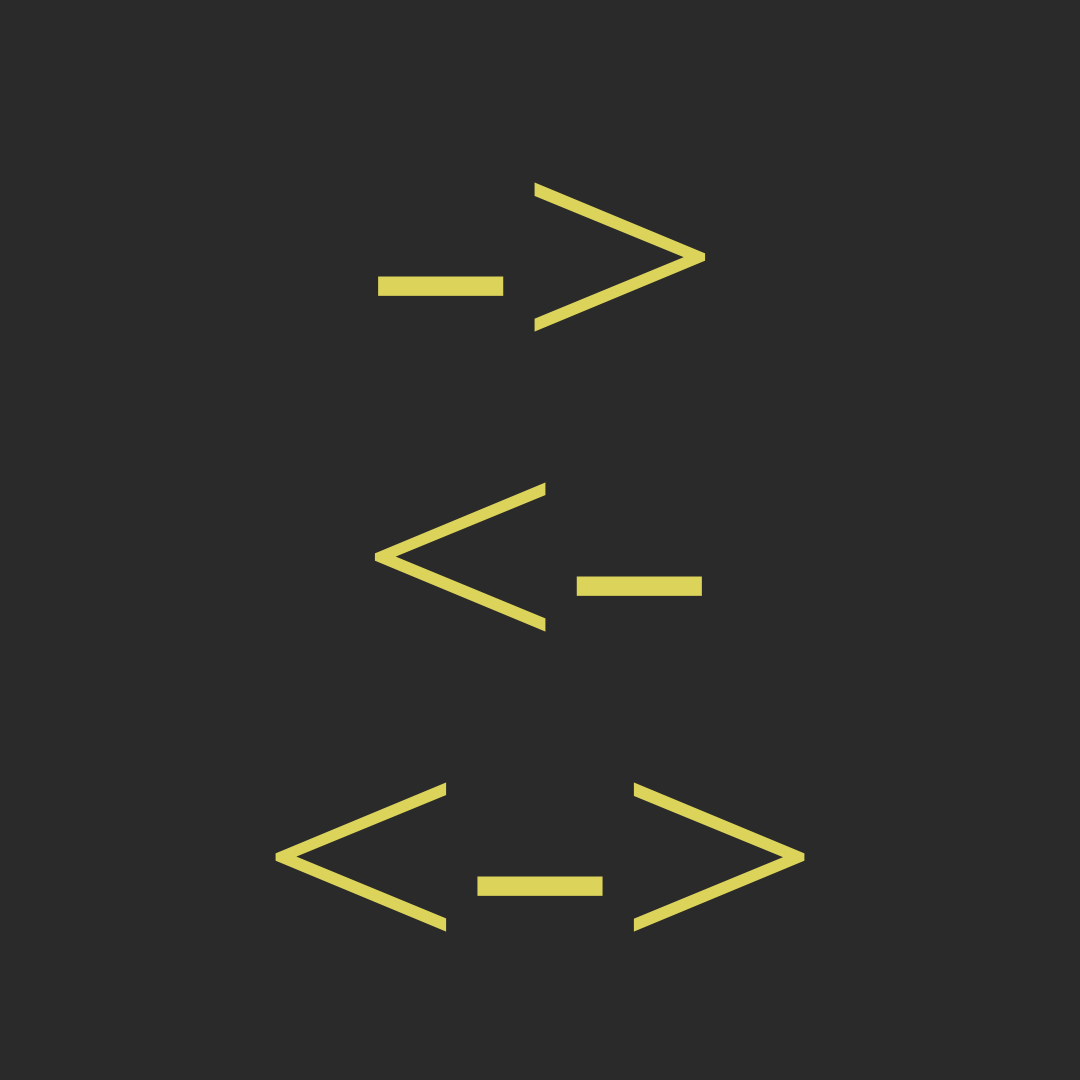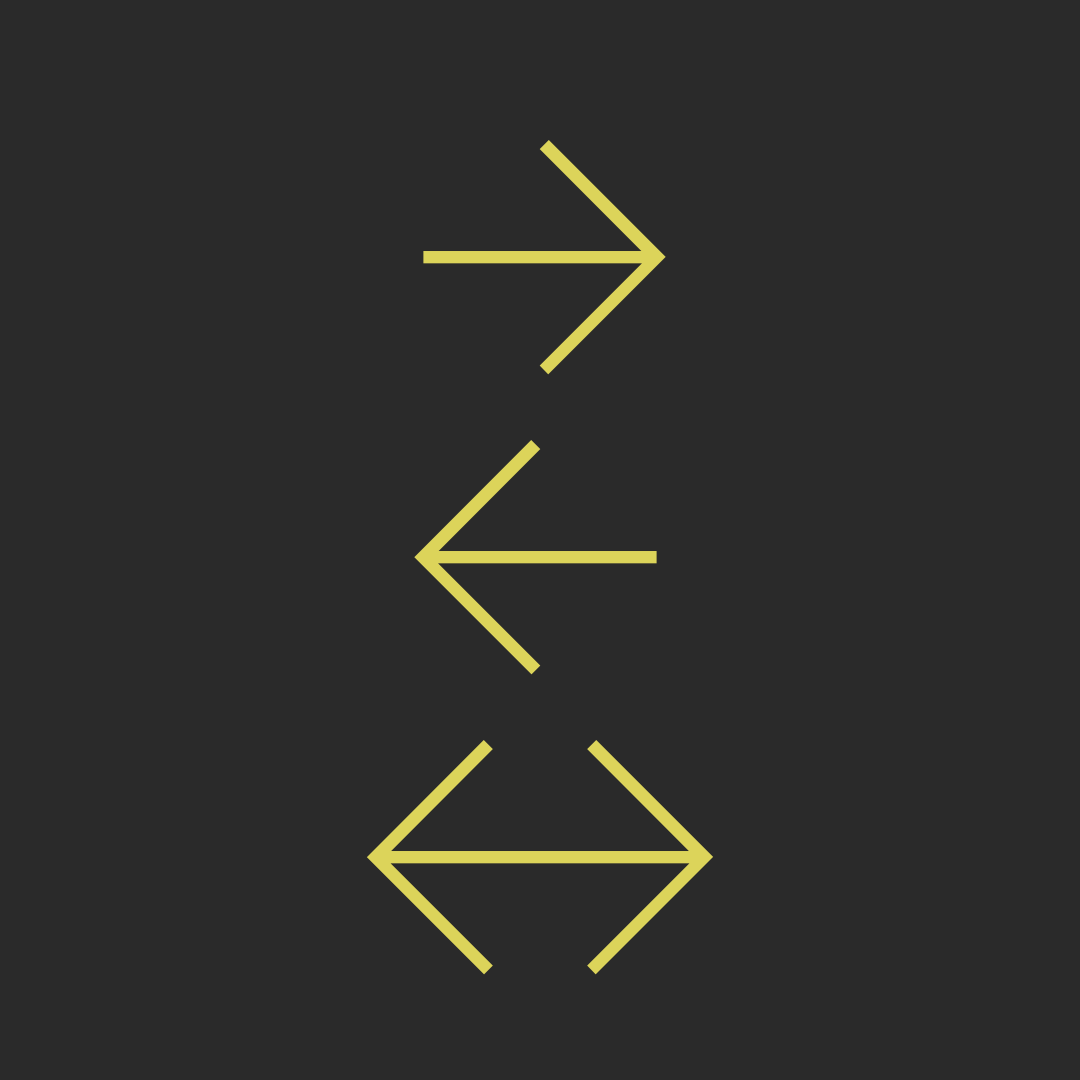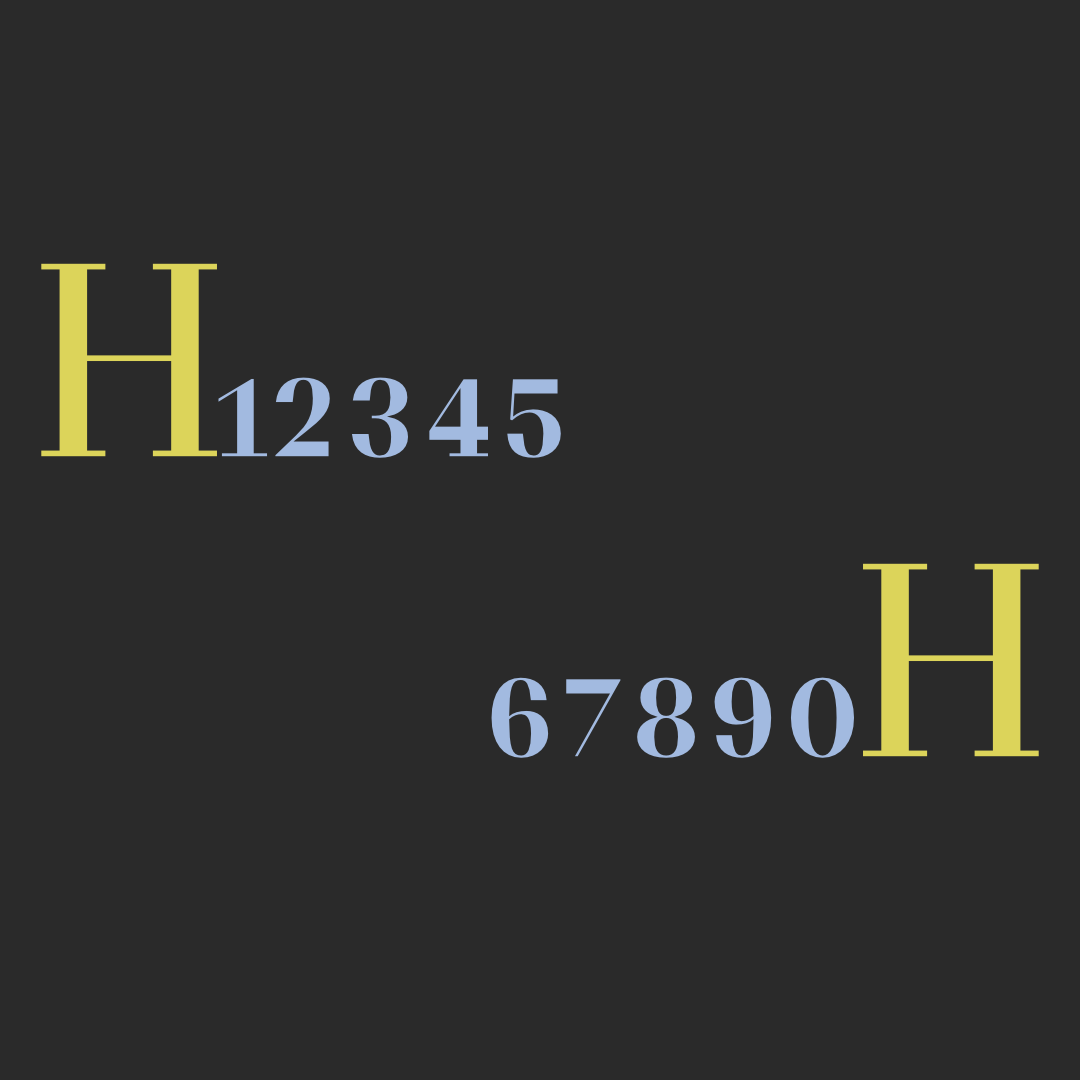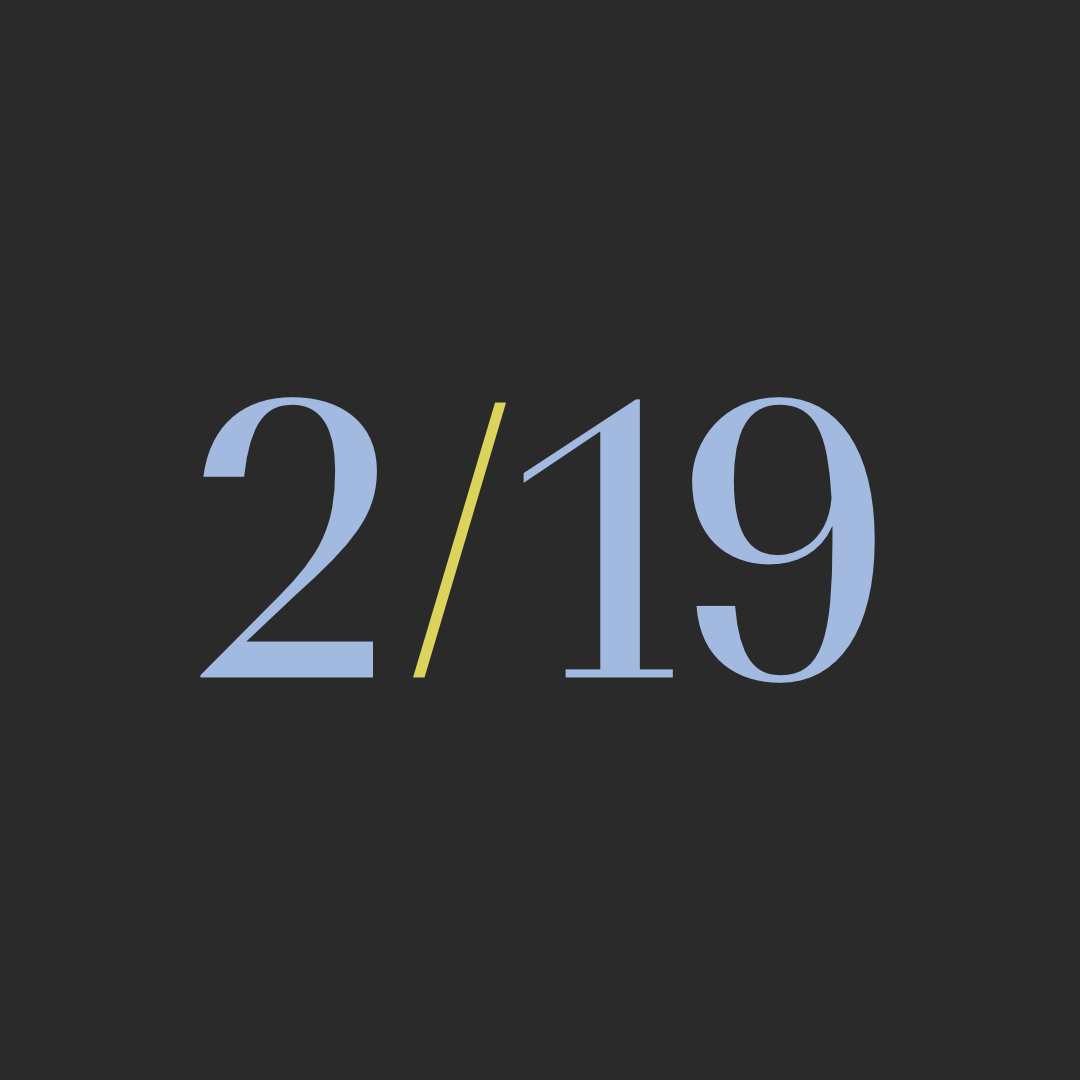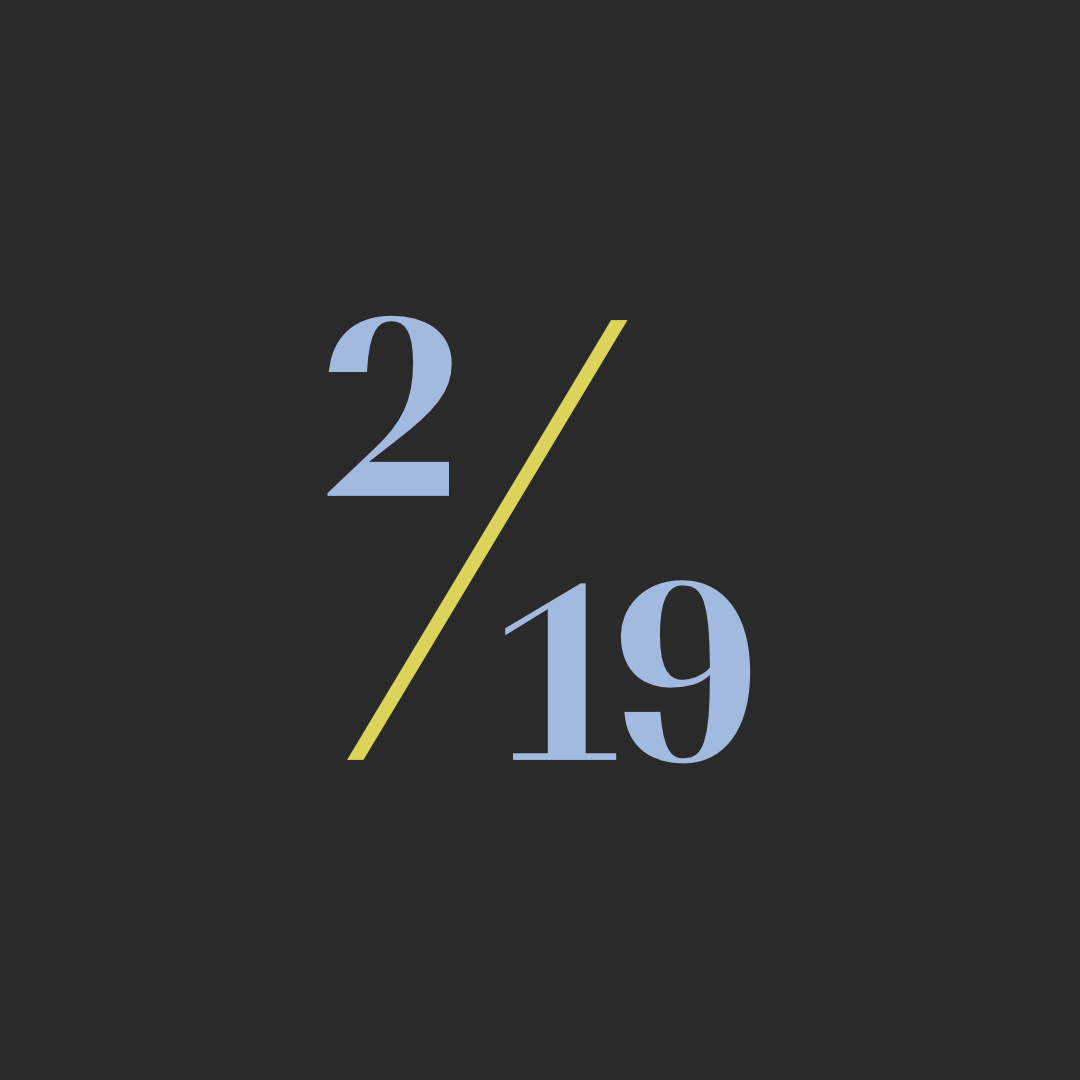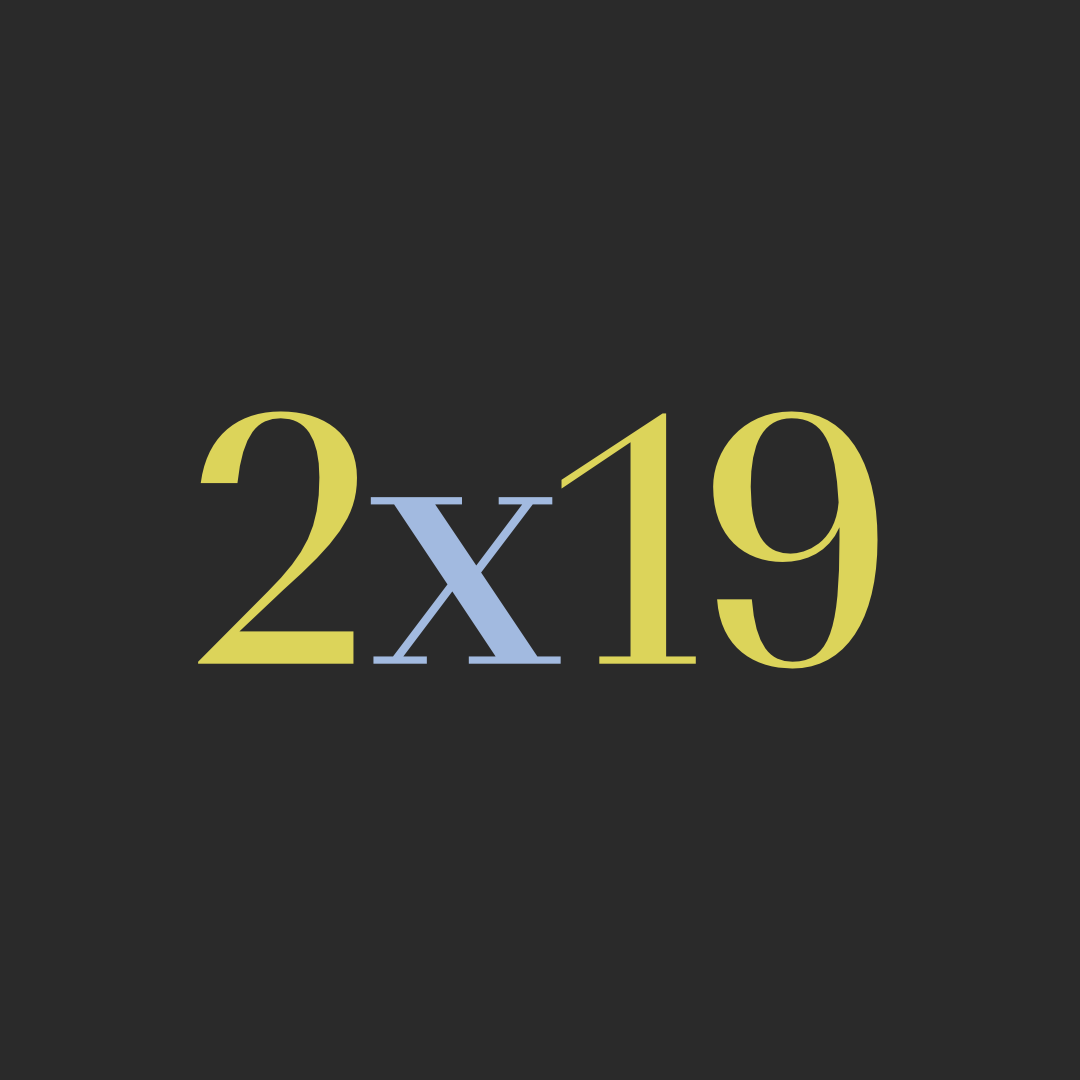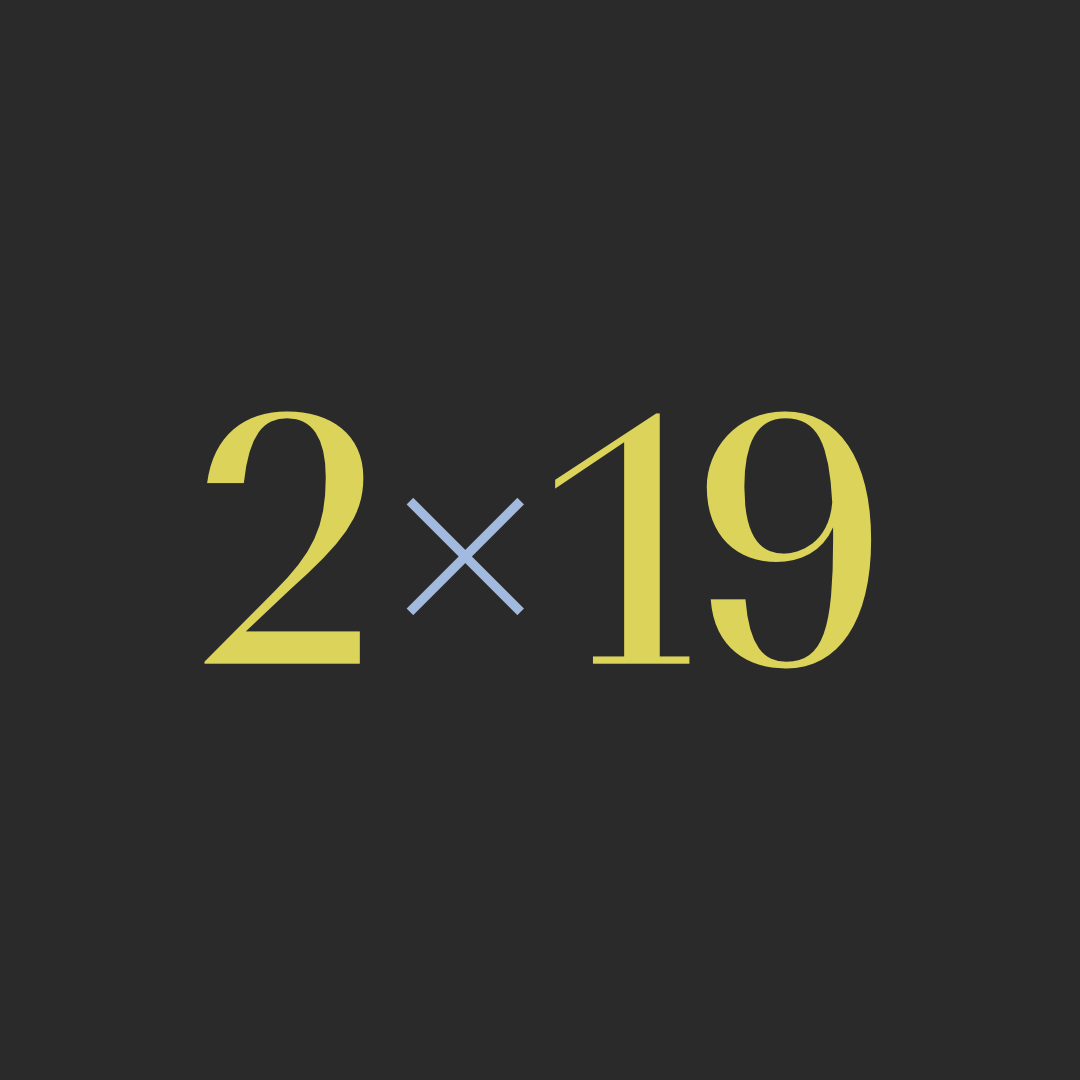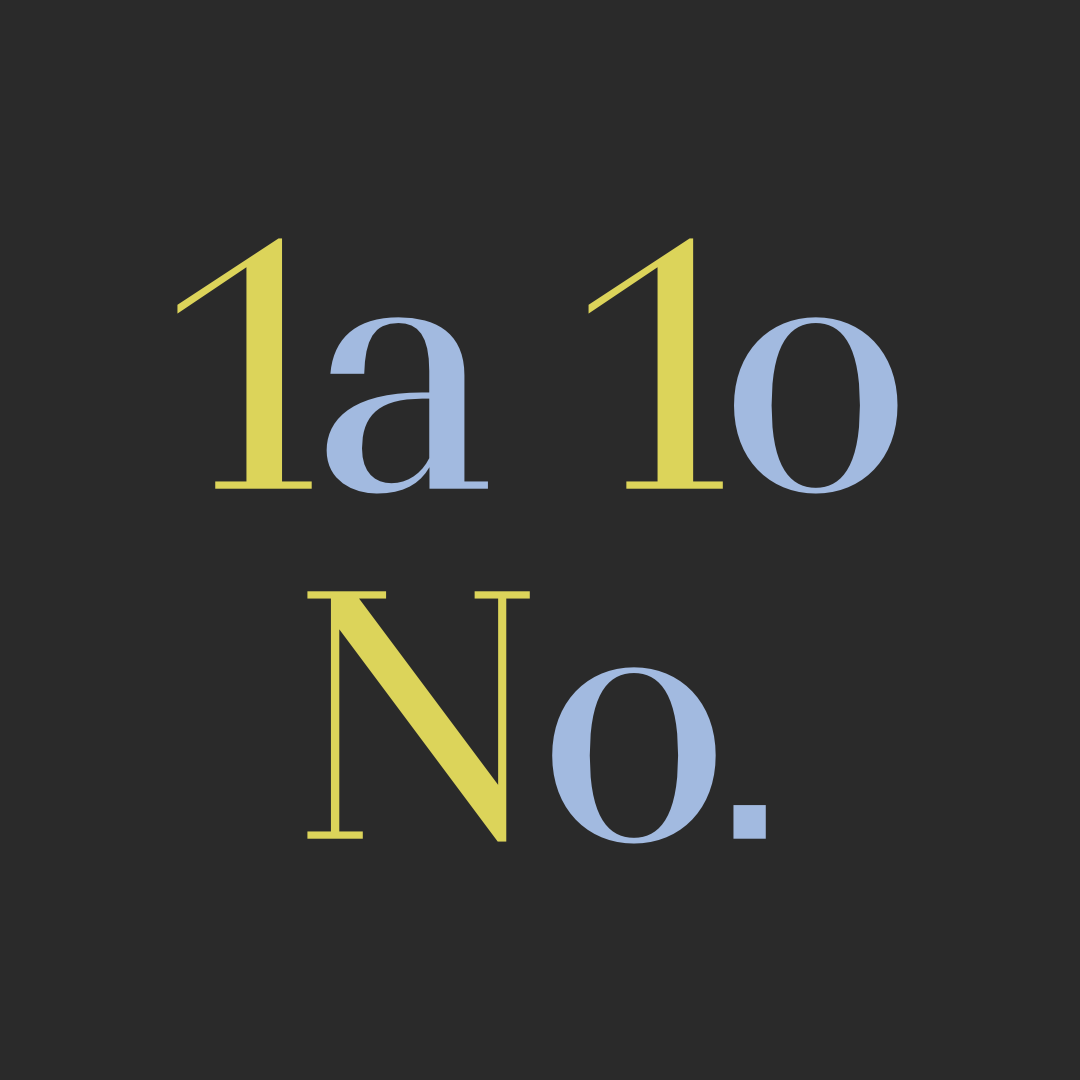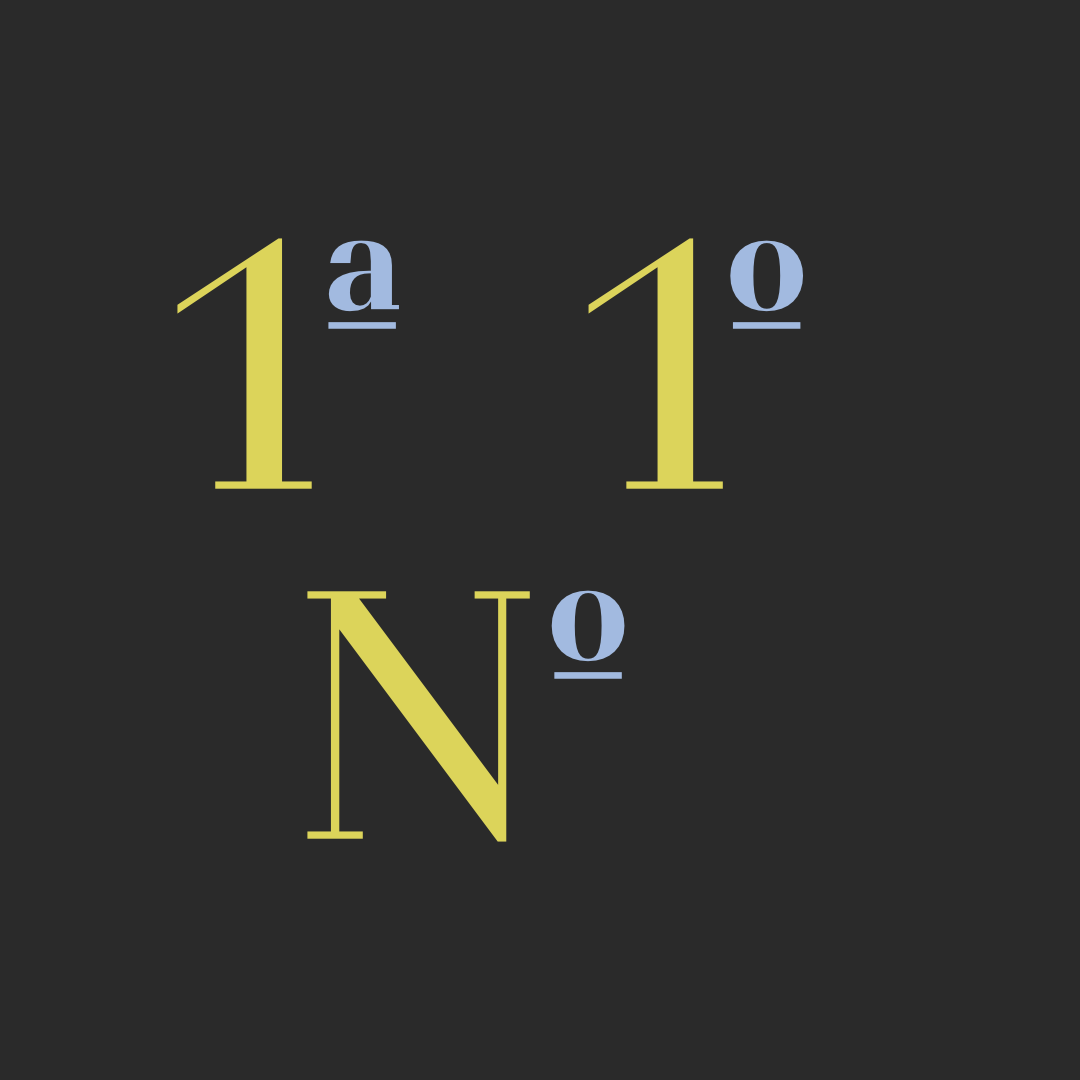
Resort Serif
Resort Serif is a high-contrast serif typeface grounded in a neo-grotesque structure. Its foundation is shared with BS Resort Classic, but the addition of hairline serifs shifts its tone toward something sharper, more formal. The construction remains strict and proportioned, methodical rather than ornamental.
With its vertical contrast, BS Resort Serif embraces the full clarity of the Didone tradition, while keeping a constructed, contemporary edge. The S and s retain a distinctive forward lean and the f features a striking upper curve.
Several alternate sets are included enhance versatility: the a and g offer single-storey forms; the l features a curved terminal at the base; the t has a straight terminal without curl; punctuation marks and dots include rounded shapes; and the uppercase letters Ä, Ö and Ü display distinctive titled terminals. The uppercase A, E, F and G feature heavy crossbars giving the horizontals a grounded presence.
The family spans ten weights from Thin to Black, each accompanied by an Italic (13°) and a Super Italic (26°), totaling 30 styles. Two variable axis covers weight and slant, offering seamless adaptability for any digital or print environment.